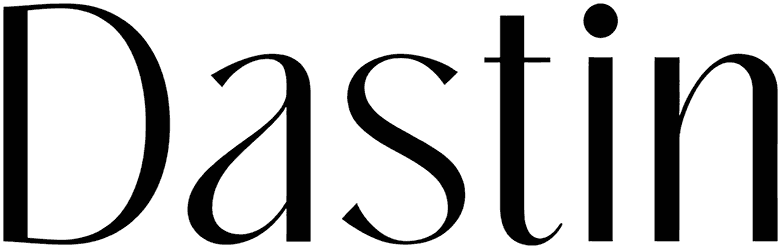
Dastin Font
Dastin font has that clean, modern look designers keep chasing when a project needs to feel confident but not cold. Its sans serif body is polished, smooth, and nicely balanced, so your text gets a professional voice without turning into another stiff corporate headline. There’s a stylish calmness here that makes branding feel instantly more expensive.
Use this sans serif font for fashion lookbooks, minimalist logos, beauty packaging, studio portfolios, app headers, or social media campaigns that need crisp typography with a soft premium edge. Pair it with a signature font, warm neutrals, and sharp product photography, and you’ve got a layout that knows exactly what it’s doing.